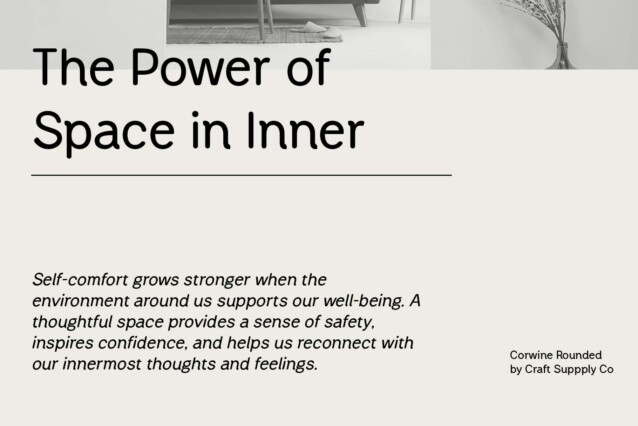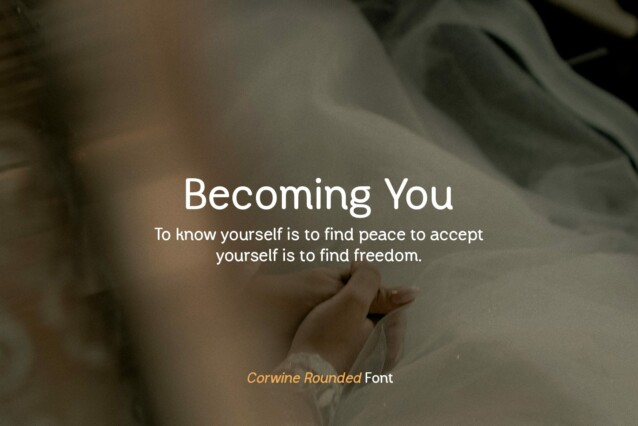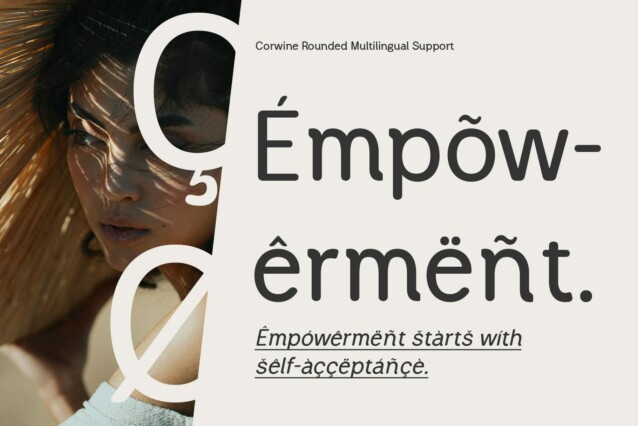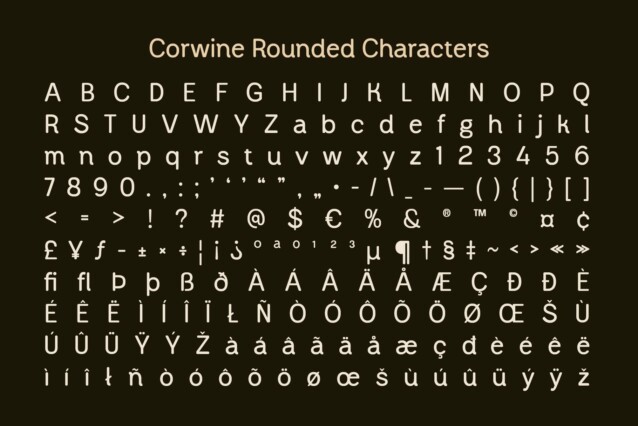
Corwine Rounded Font
Corwine Rounded Font is a modern sans serif font that blends the precision of geometric design with the warmth of rounded shapes. Its clean, structured lines provide clarity and professionalism, while the smooth curves of the rounded edges introduce a friendly and approachable feel. This perfect balance makes Corwine Rounded ideal for contemporary designs that require both elegance and accessibility.